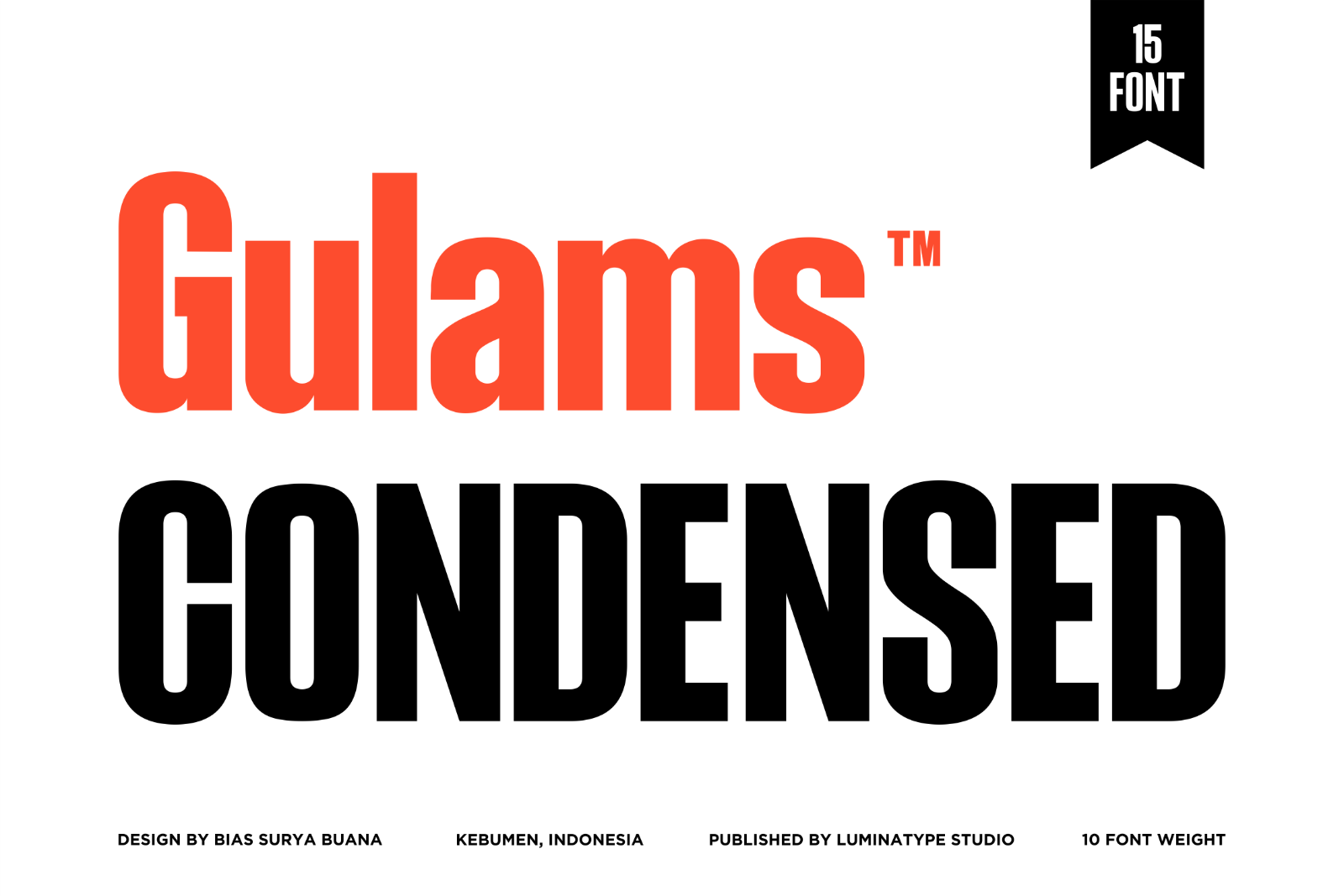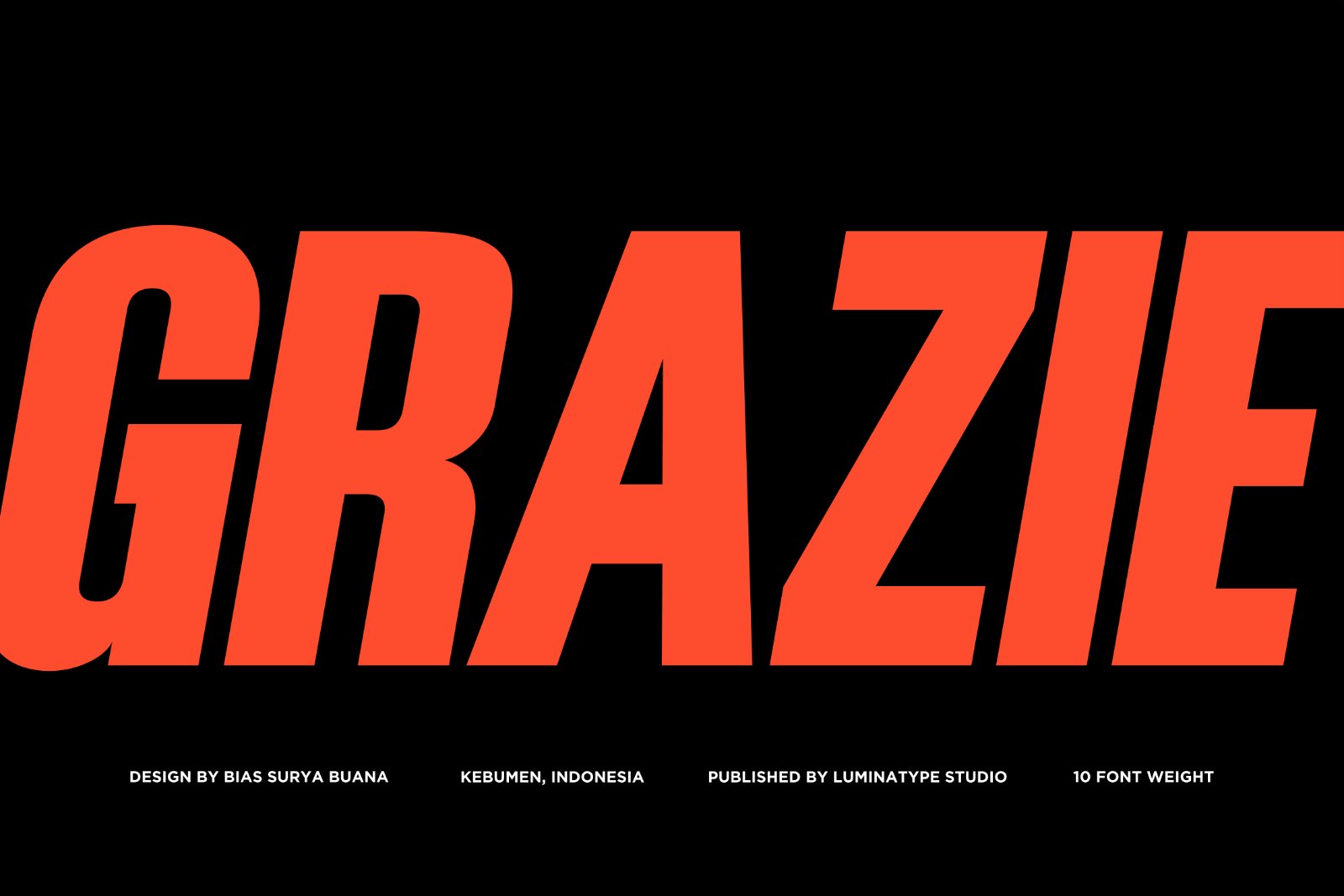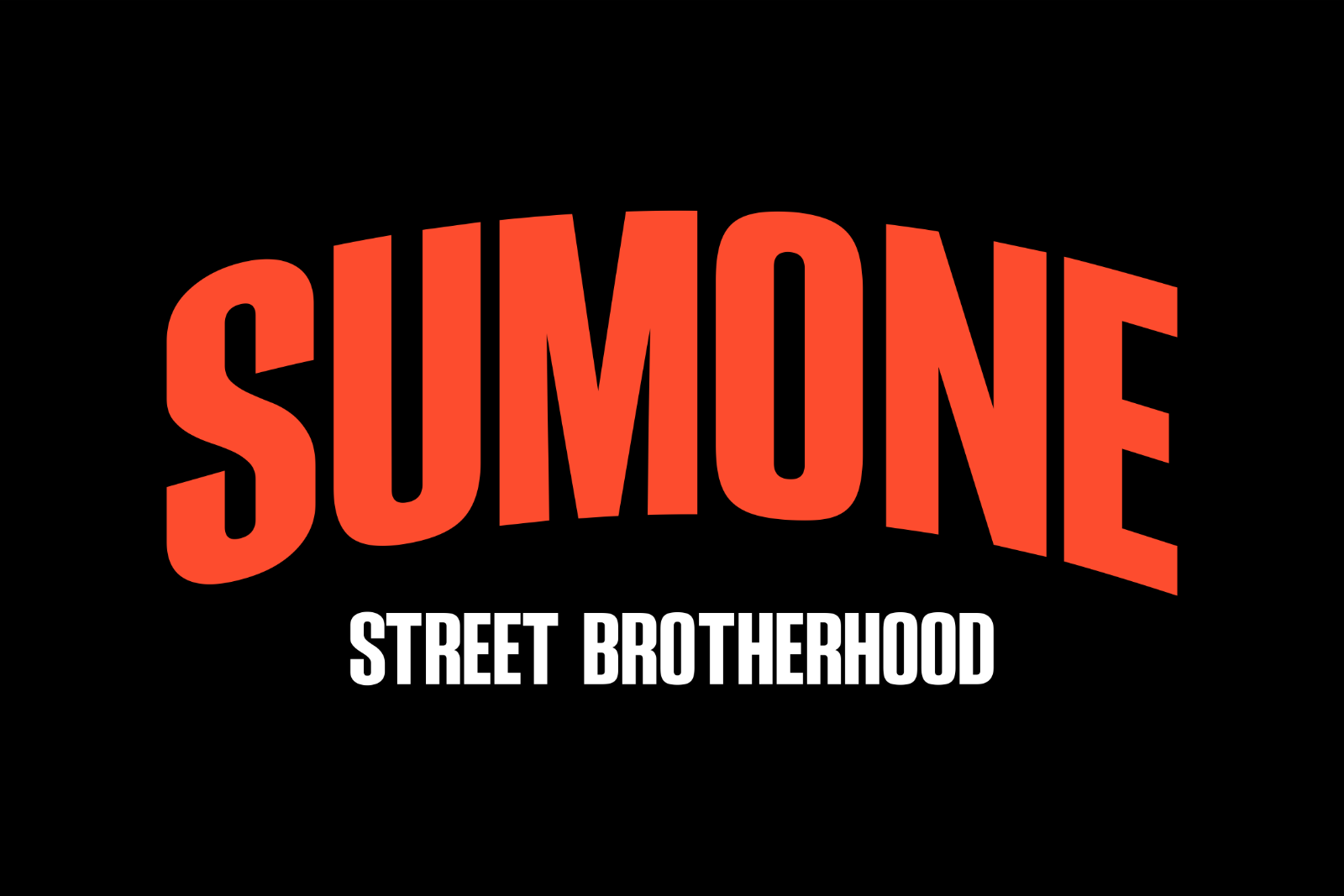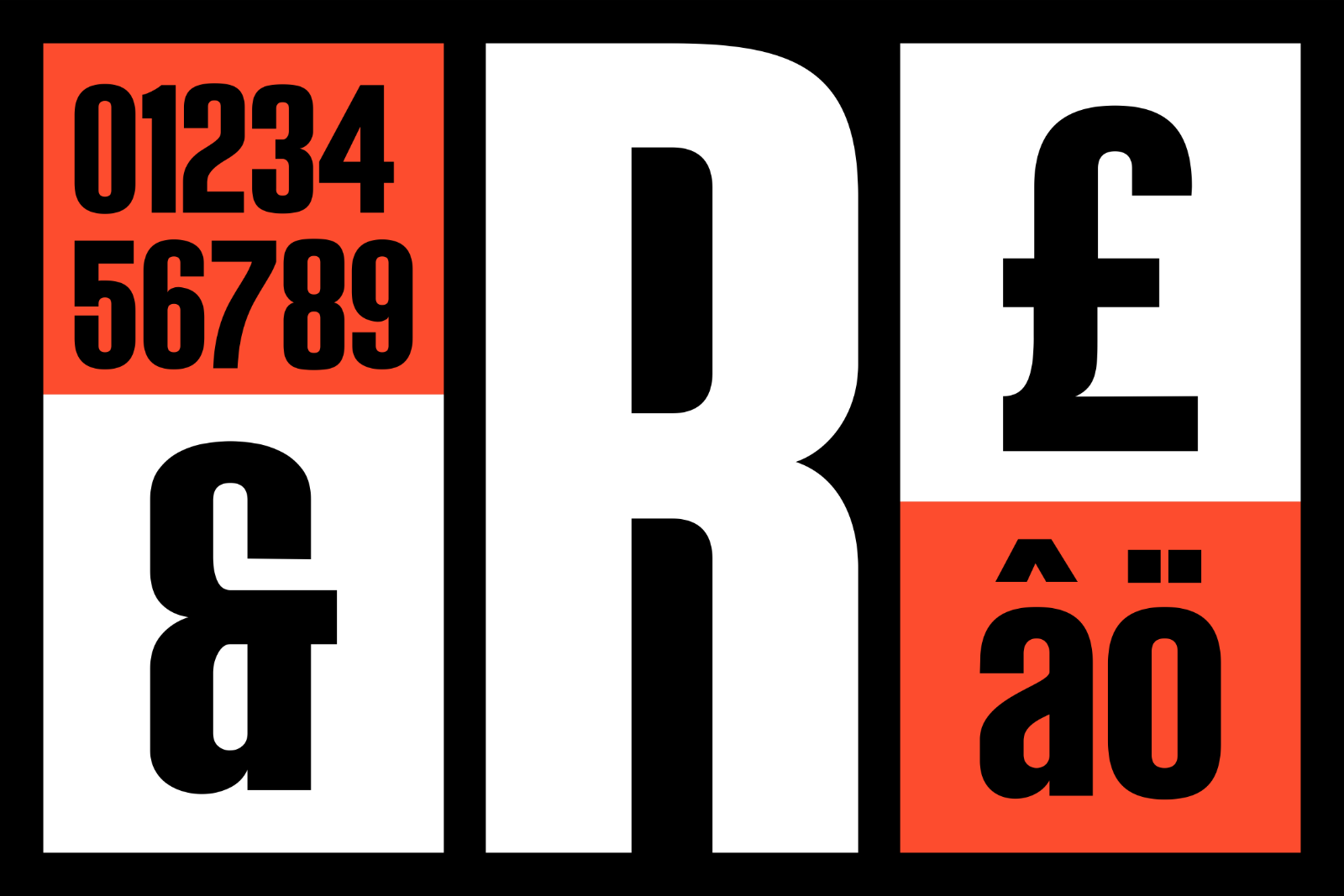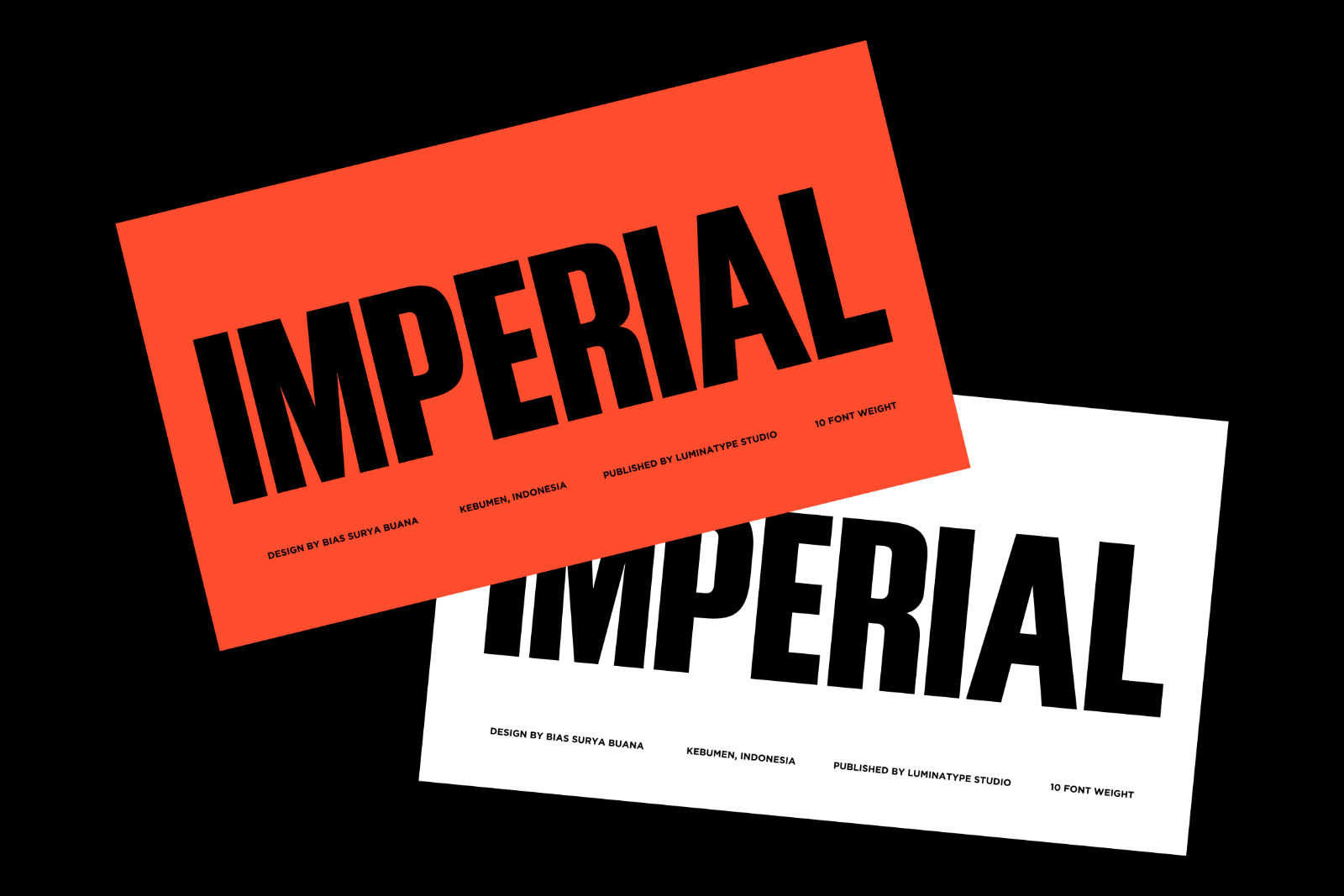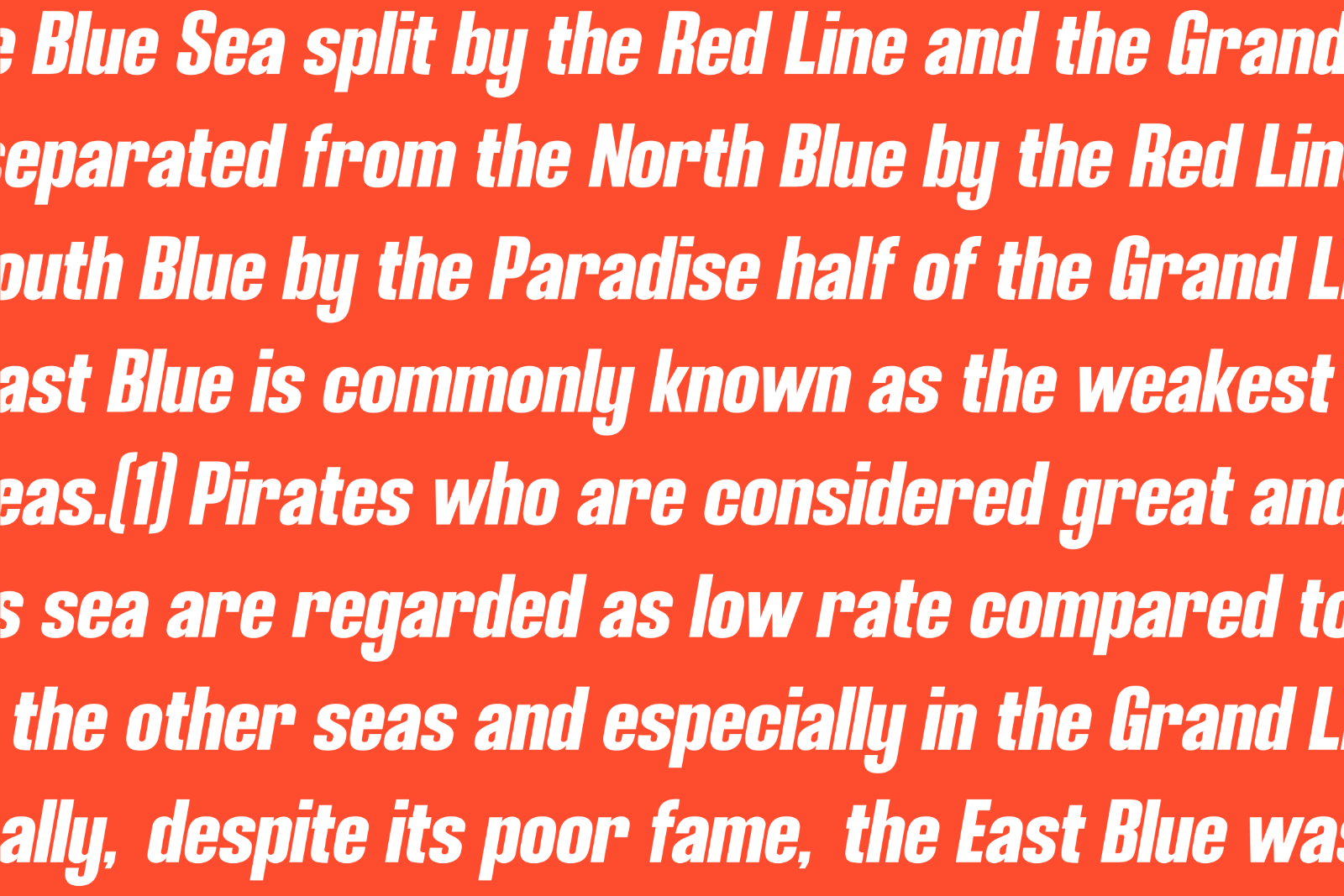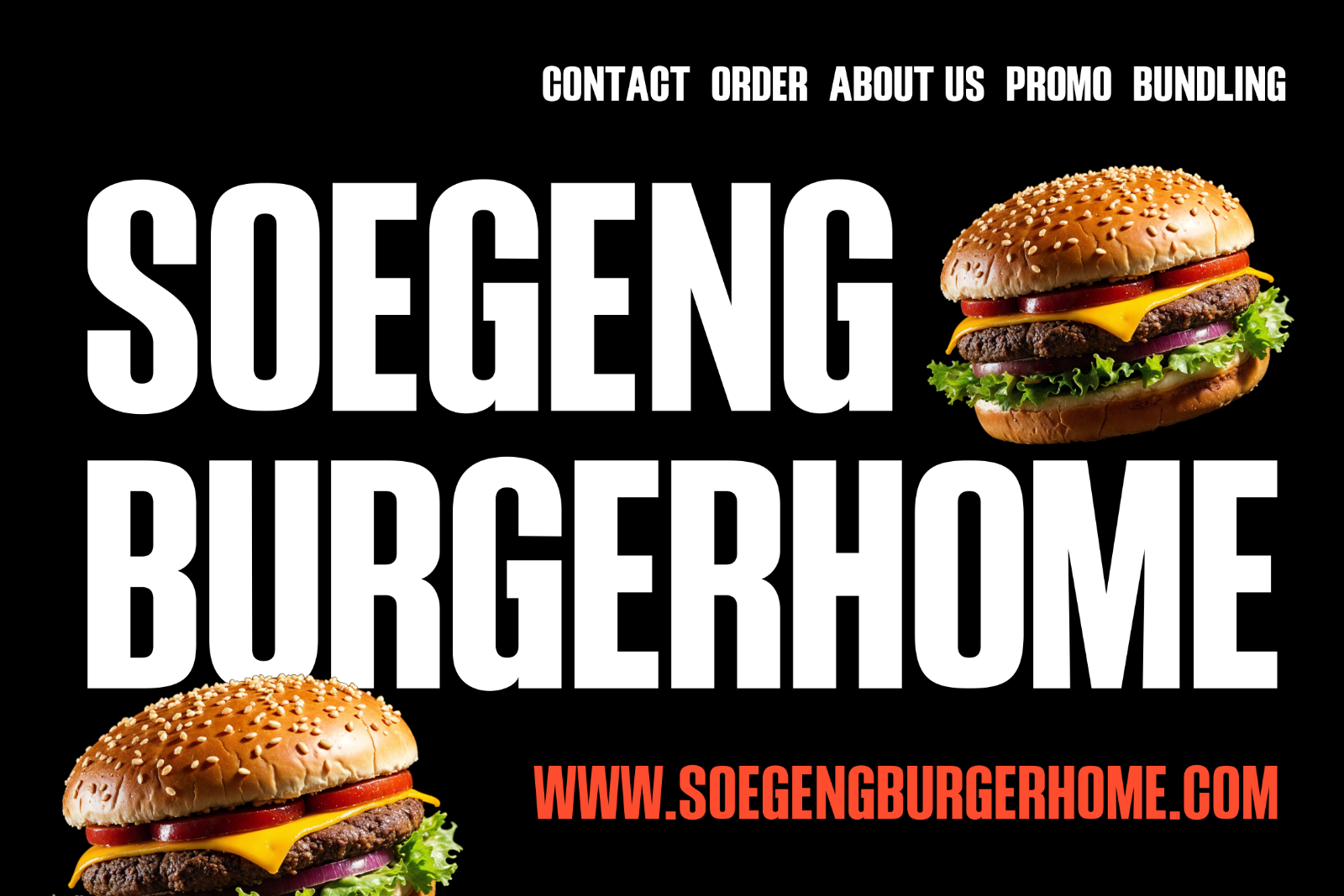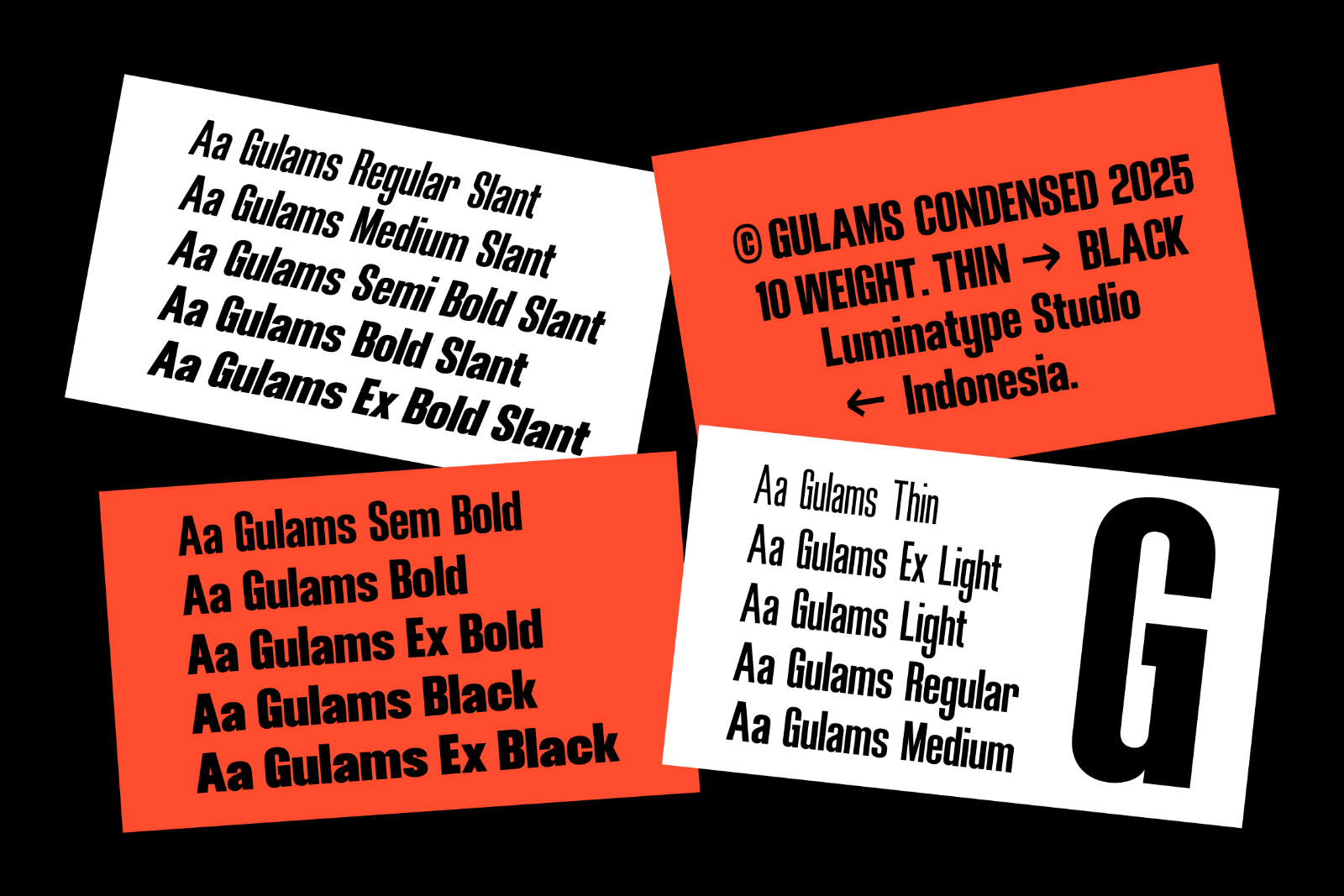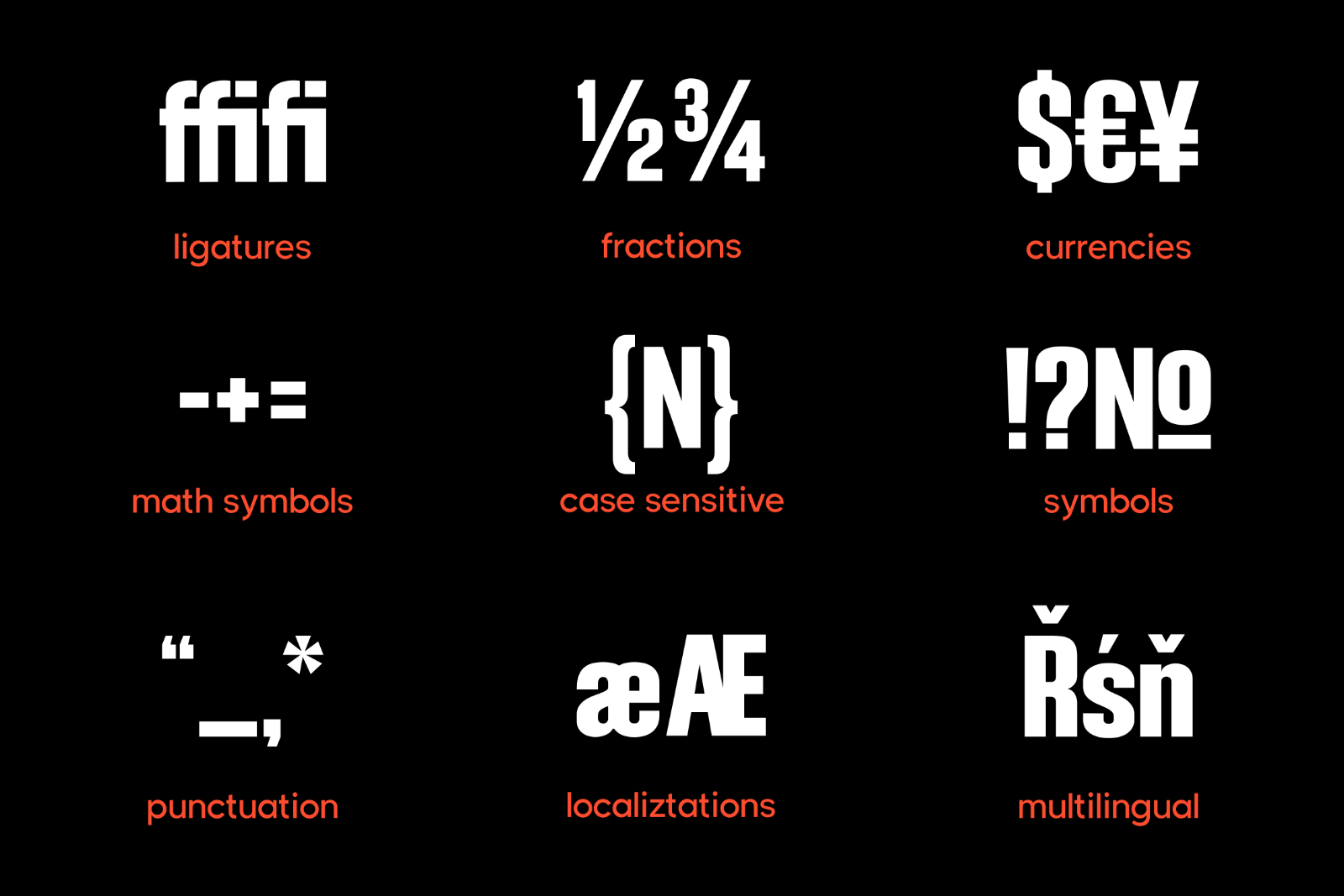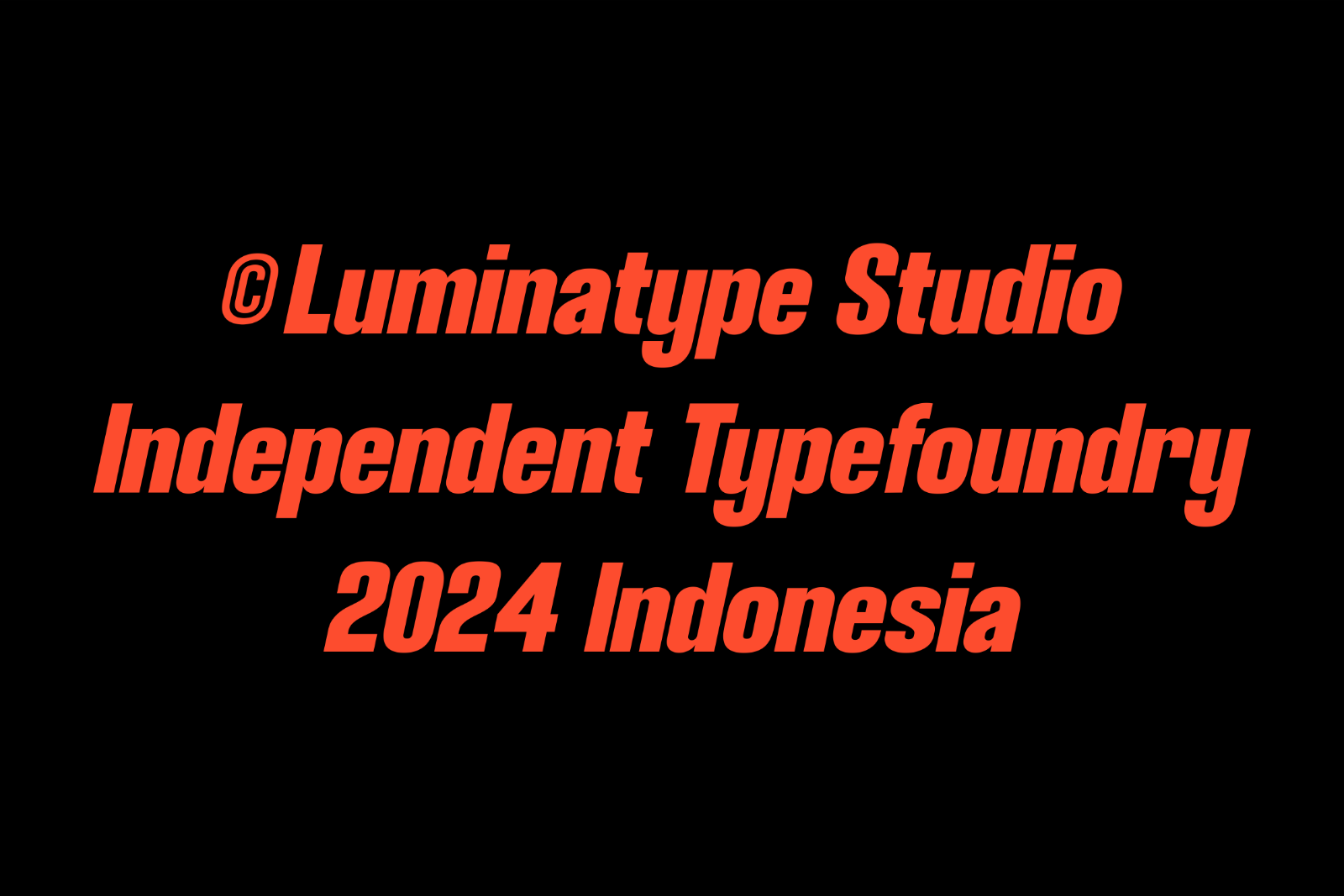
Gulams Condensed uses the magic of a modern condensed font to boldly highlight key elements in any design. Crafted for impact across print and digital landscapes, its robust character set is available in an impressive 15 weights and 5 slant styles, promising variety and adaptability. ideal for body text and headlines, meshes seamlessly with the Slanted style which, brimming with energy and innovation, is specifically designed to catch and hold attention. In its narrowed proportions and carefully articulated details, Gulam Condensed isn't just exceptionally readable but stylishly modern, subtly infusing any design project with a contemporary edge. From brand identities to posters and beyond, Gulams Condensed is the consummate choice for injecting your graphic designs with a touch of professional magnetism.